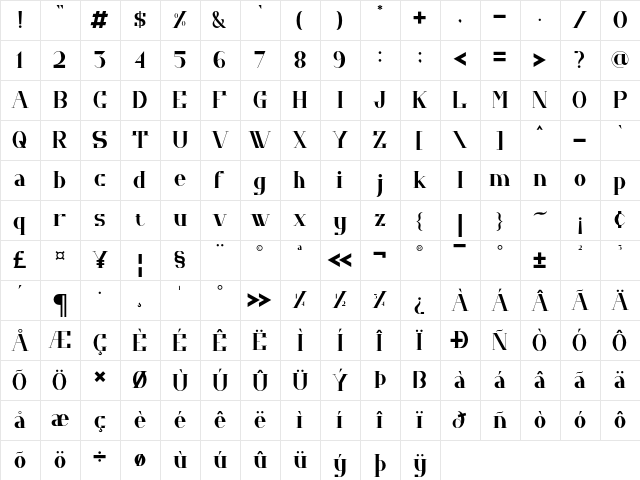
CENORA Regular
Design Context for CENORA Typeface
CENORA takes a measured approach to typography — its balanced proportions and neutral character make it a reliable workhorse for both digital and print work.